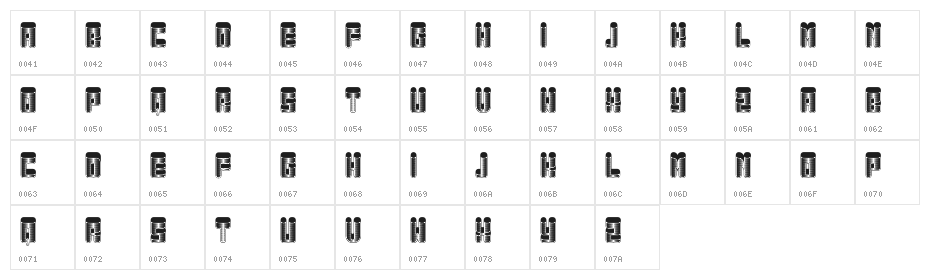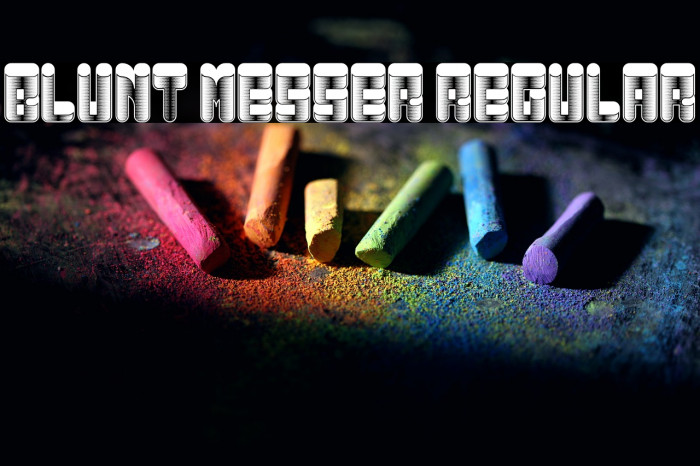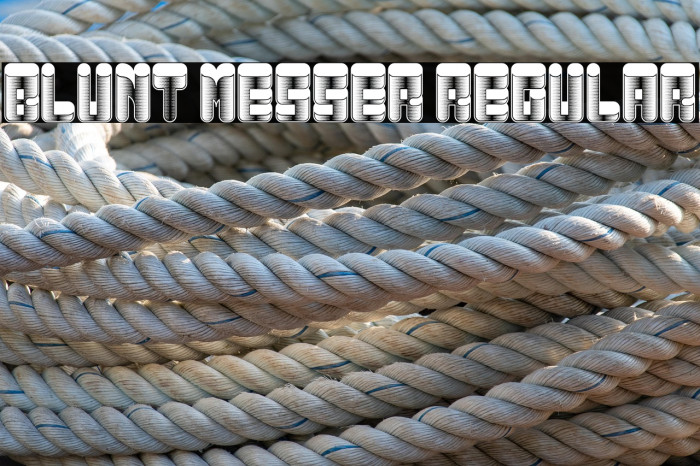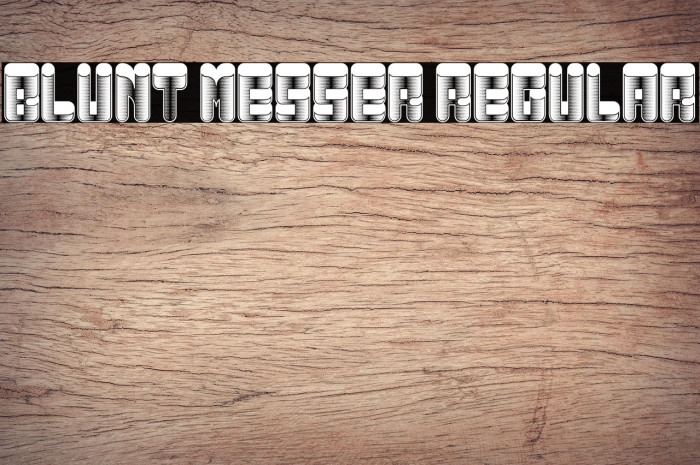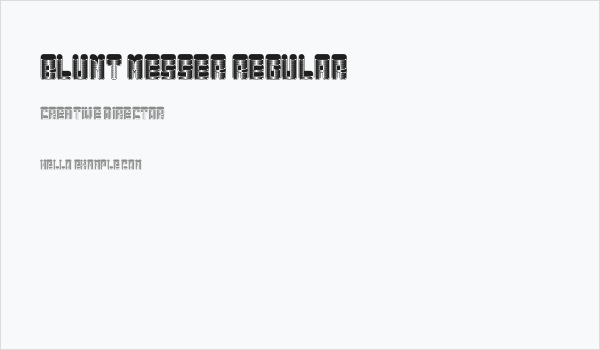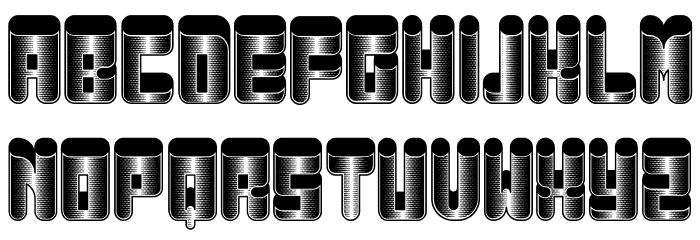
Blunt Messer Regular Font
Blunt Messer Regular Description
This font features a bold, three-dimensional appearance with a unique gradient effect that gives it a metallic, futuristic look. The characters are blocky and robust, with rounded edges that soften the overall impact. The gradient shading within each letter creates a sense of depth and texture, making it stand out in any design. The uppercase letters are uniform in height, while the lowercase letters maintain a consistent style, ensuring readability. This font's distinct style is ideal for projects that require a strong visual presence.
| Overall Style | Futuristic, Decorative |